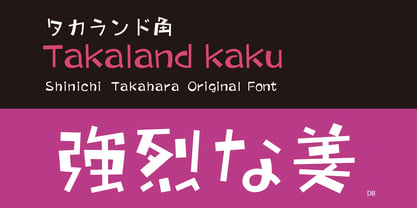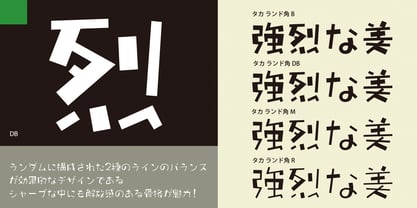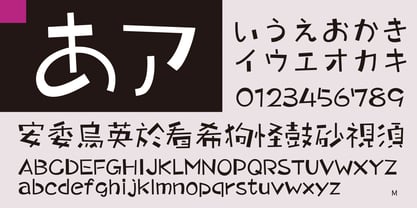
Takaland-kaku
by Taka Design Production
The Takaland-kaku Font Family was designed by and published by Taka Design Production. Takaland-kaku contains 4 styles and family package options. More about this family
This is a fun handwritten typeface composed of two random patterns of thin and thick lines. It has a sense of openness and a good amount of crispness in a well-organized framework.